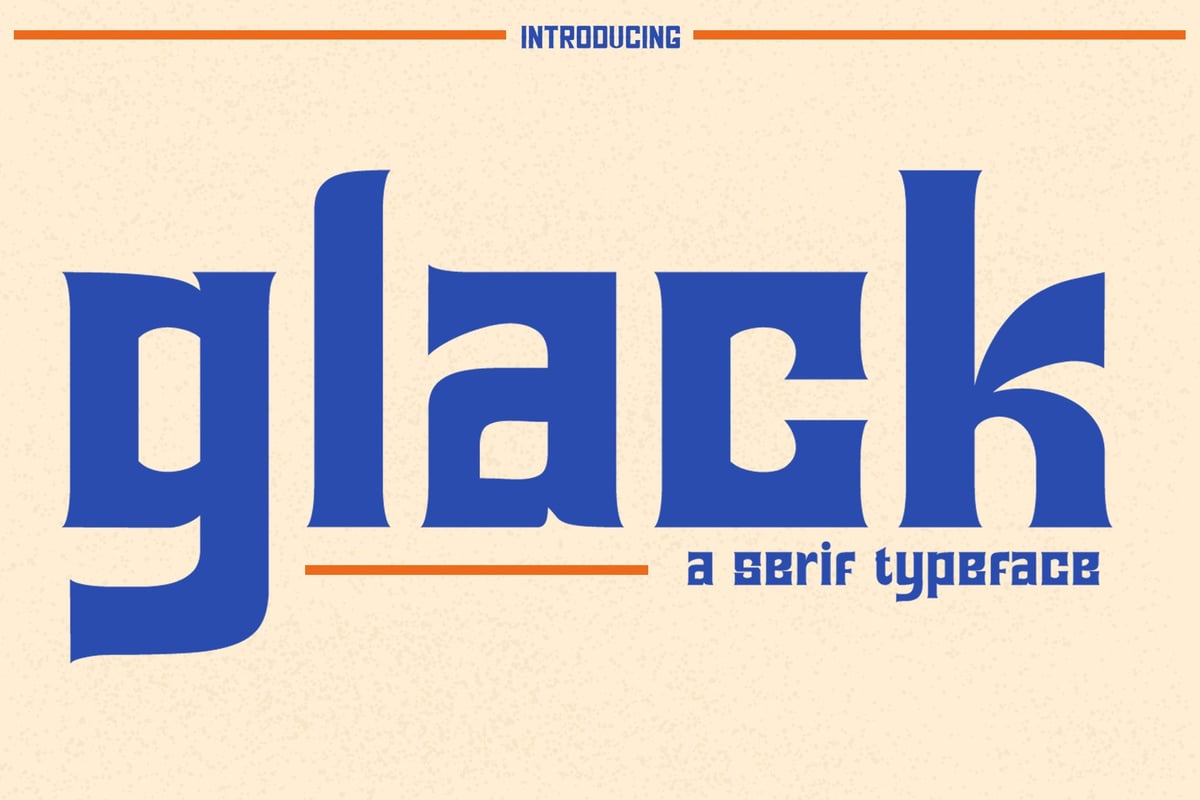
Glack – Vintage Serif Display Typeface
Bold, retro, and built to command attention — Glack is the vintage serif typeface your next big project needs.
Glack is a vintage serif display font featuring bold contrast and classic proportions. Designed to evoke a genuine retro aesthetic, its strong serifs and sturdy letterforms give it a timeless quality that works across a wide range of design applications.
Whether you're working on headlines, posters, logos, packaging, or branding projects, Glack delivers a bold and memorable type treatment that stands out without sacrificing readability or style.